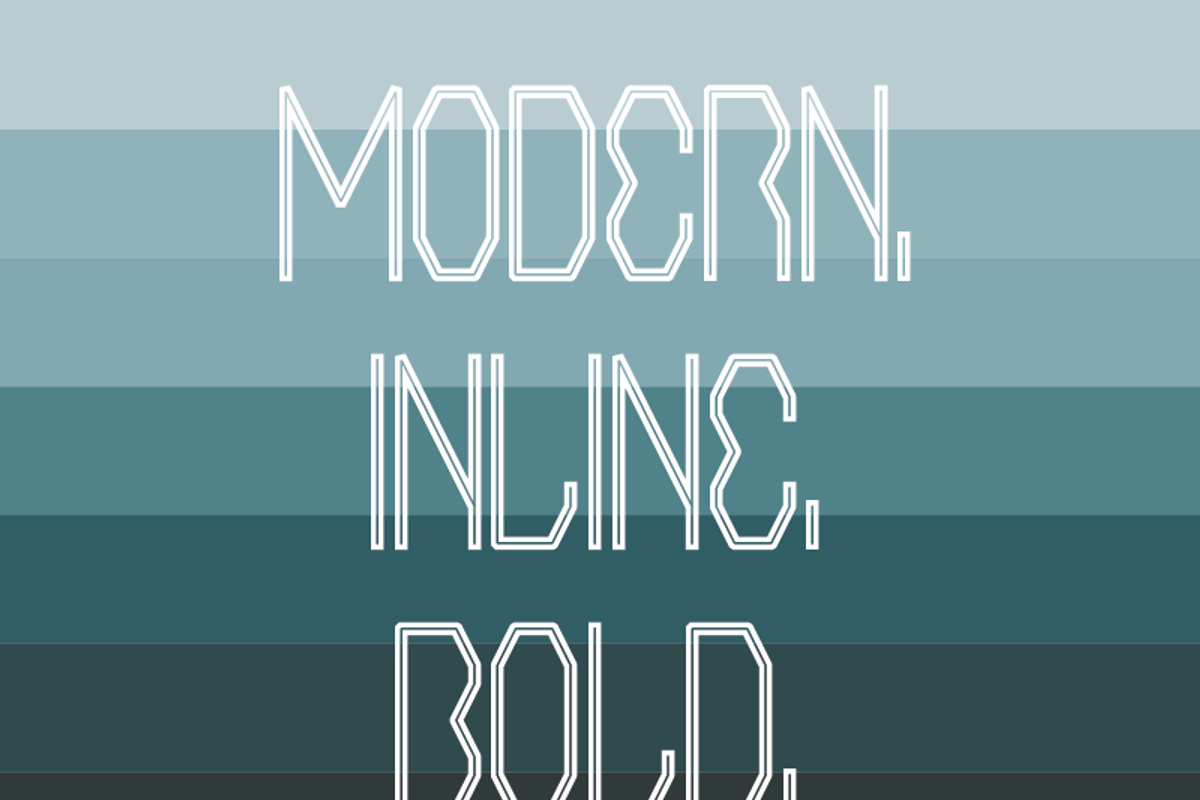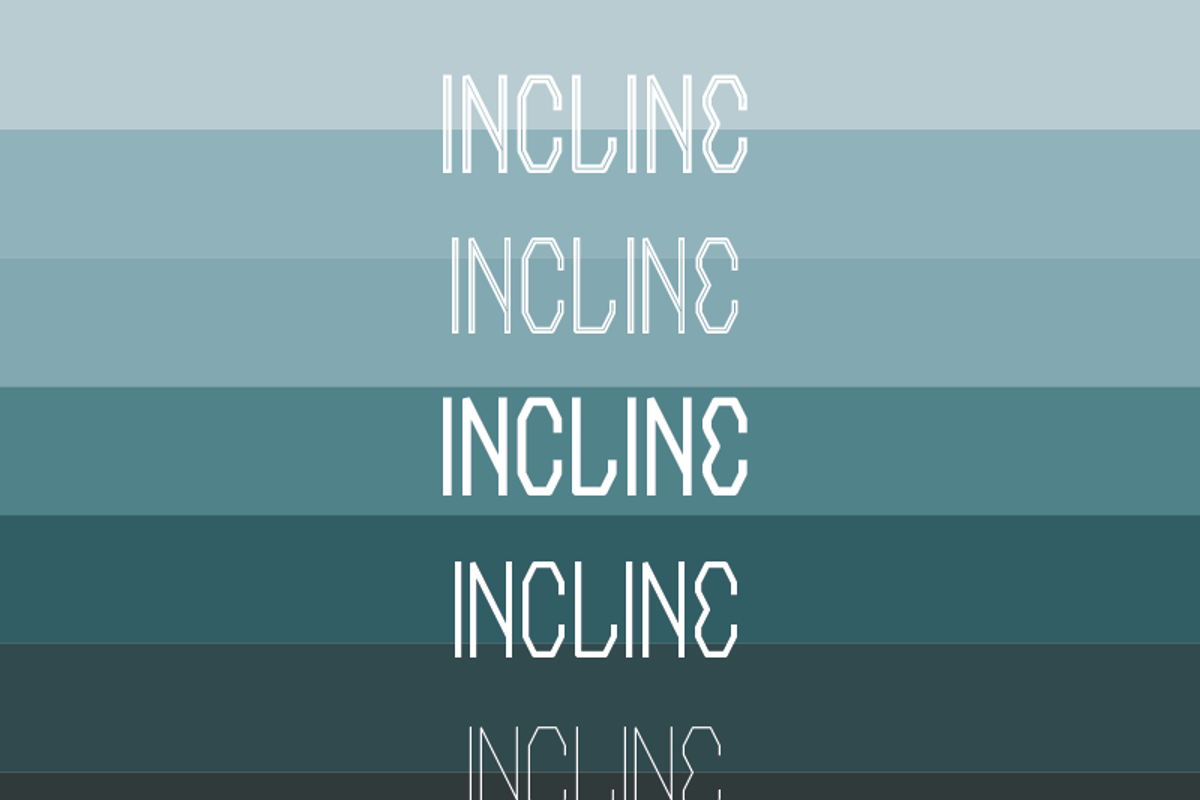
AE Incline - Display Typeface
AE Incline - Display Typeface by American Eargle is a font selected for branding, posters, packaging, typography.
- AE Incline is a modern, rigid typeface with 3 weights included.
- InCline Light
- InCline Regular
- InCline BOLD
- InCline INLINE 1
- InCline INLINE 2
- InCline INLINE 3
Why AE Incline - Display Typeface is worth a look
AE Incline - Display Typeface by American Eargle fits naturally into Branding, posters, packaging, typography.